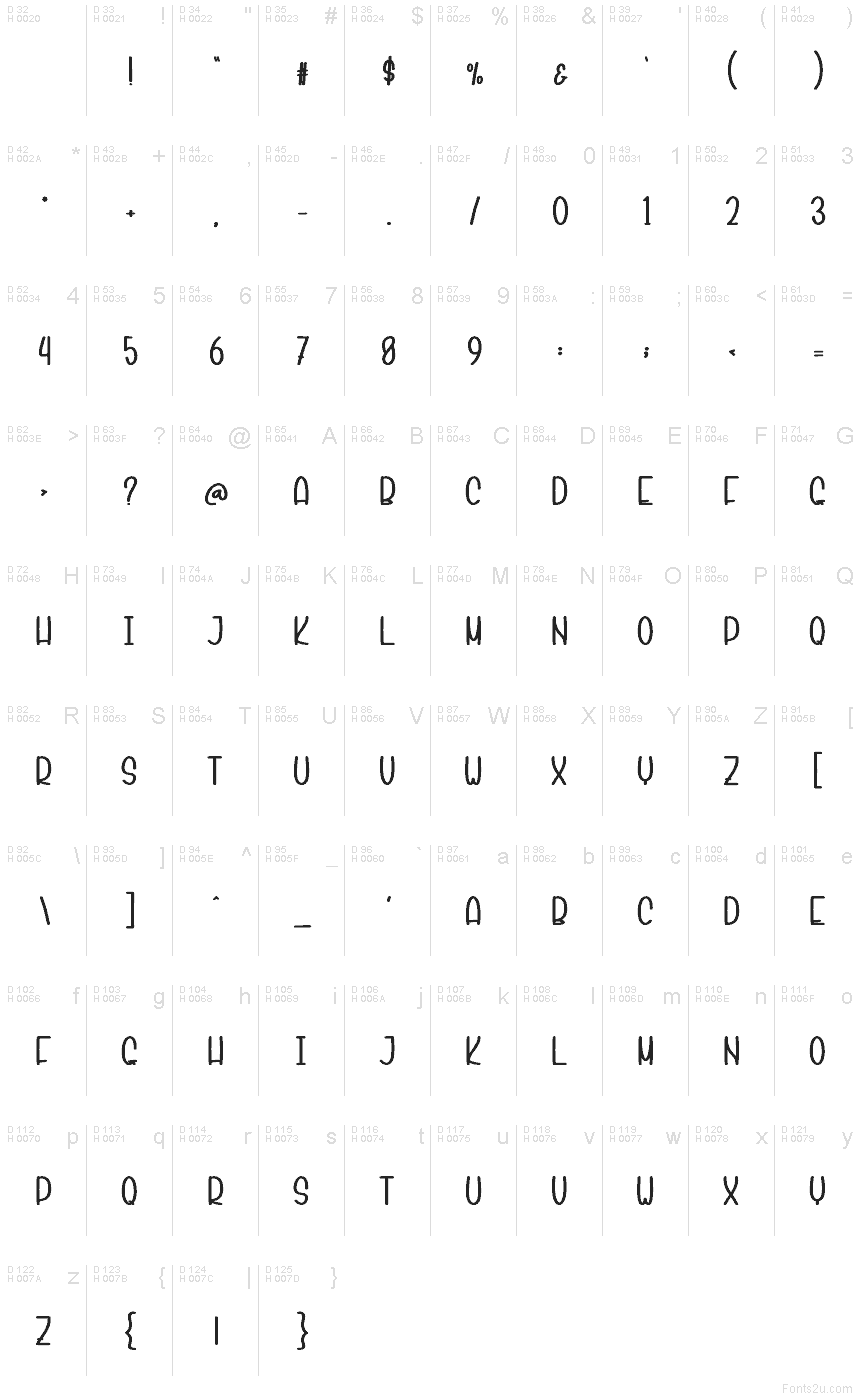
Creamy Lemonade
Creamy Lemonade font designed by Scratchones is a free handwritten font with a stylish modern aesthetic. It features quirky, casual, friendly, and approachable characters portrayed in rounded shapes. Its distinct condensed width additionally makes the display typeface easily recognizable and appears particularly stand-out in any artwork.